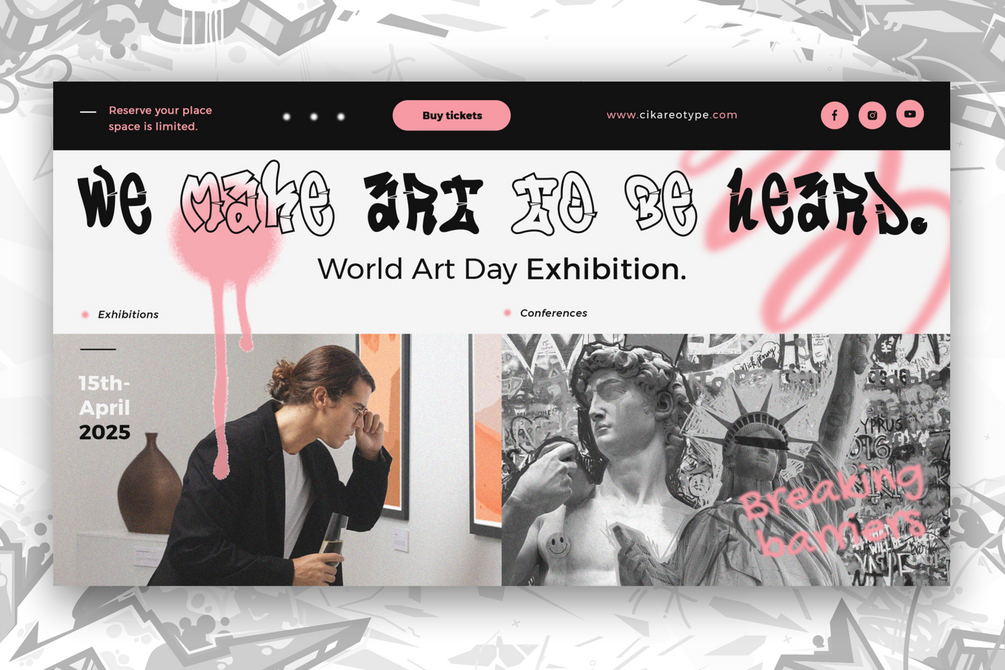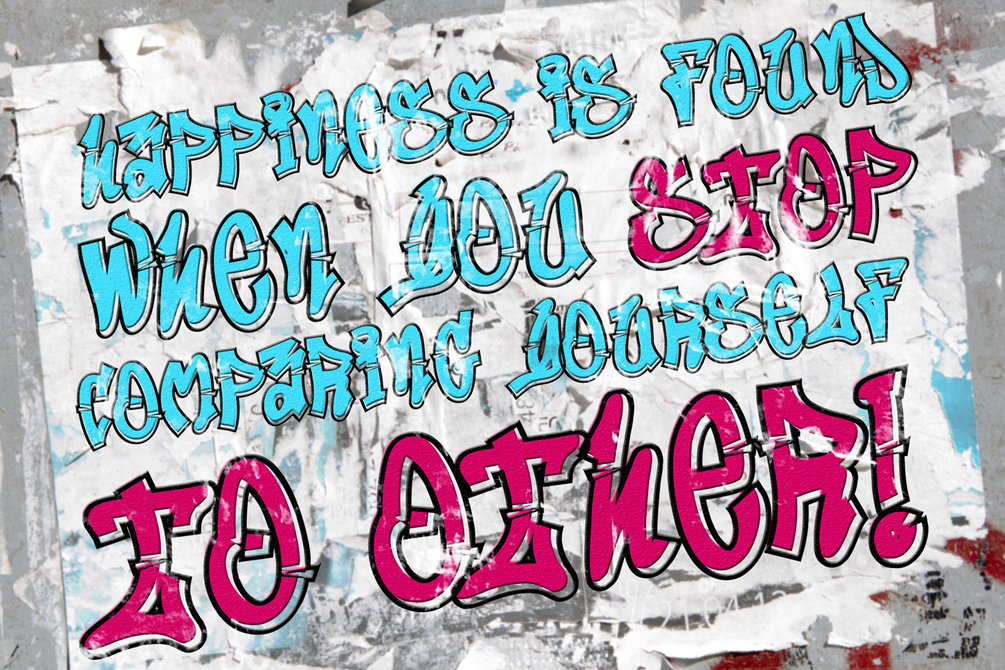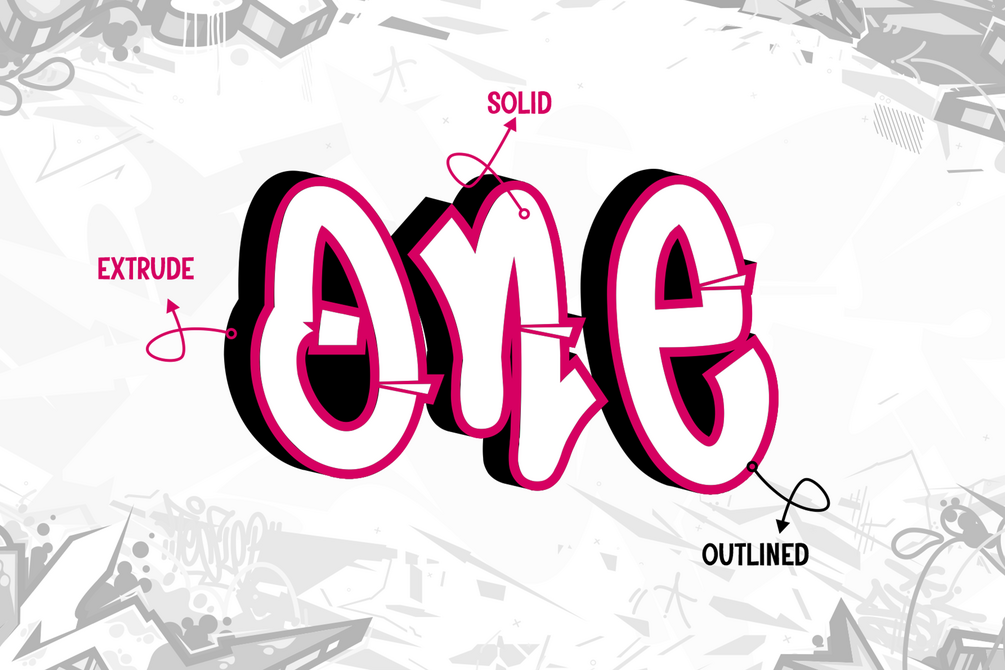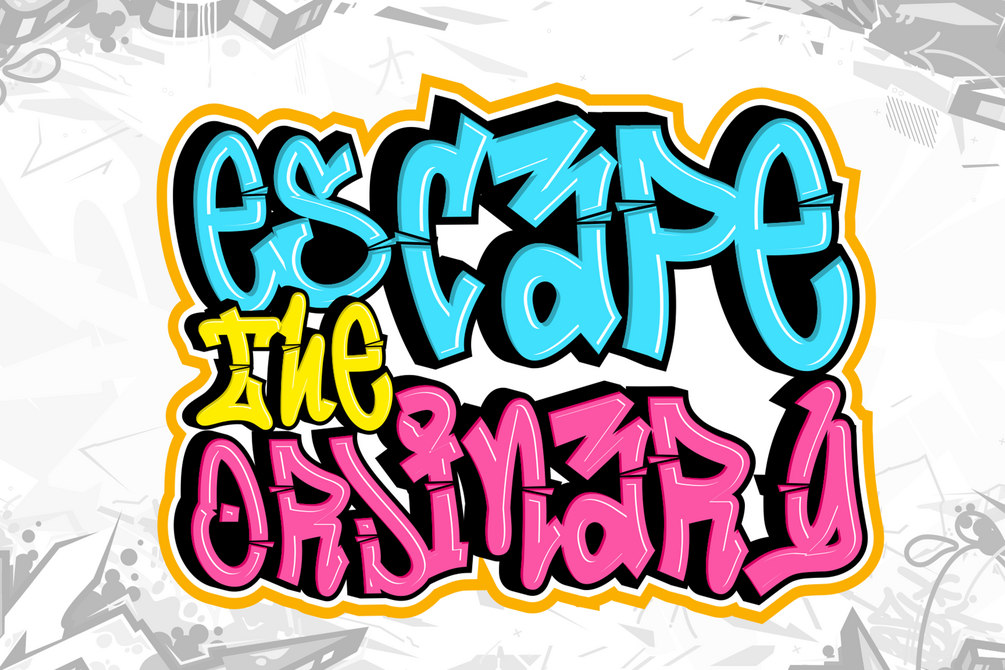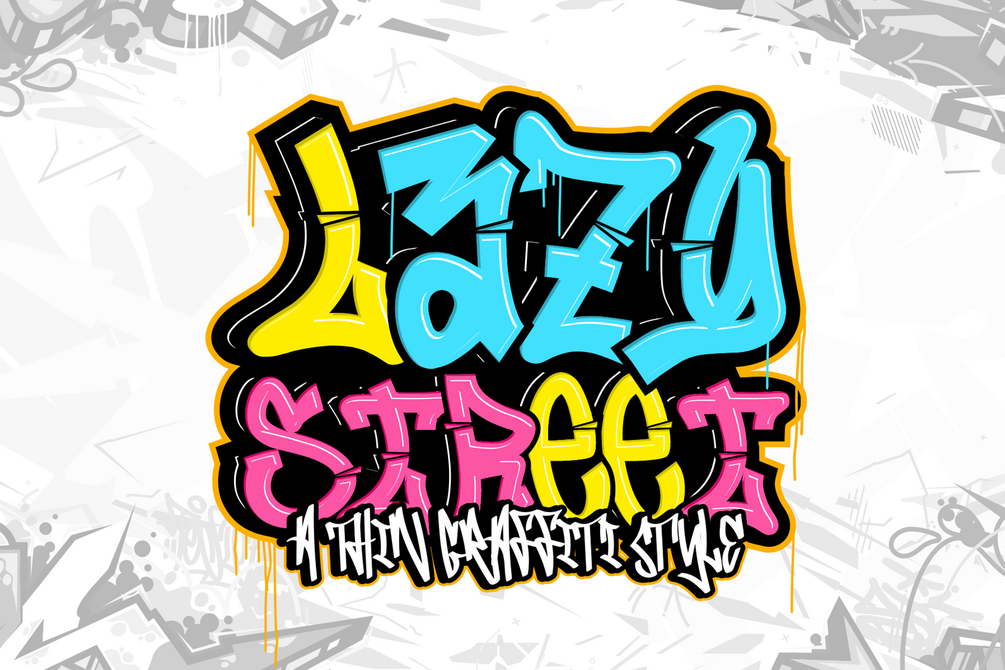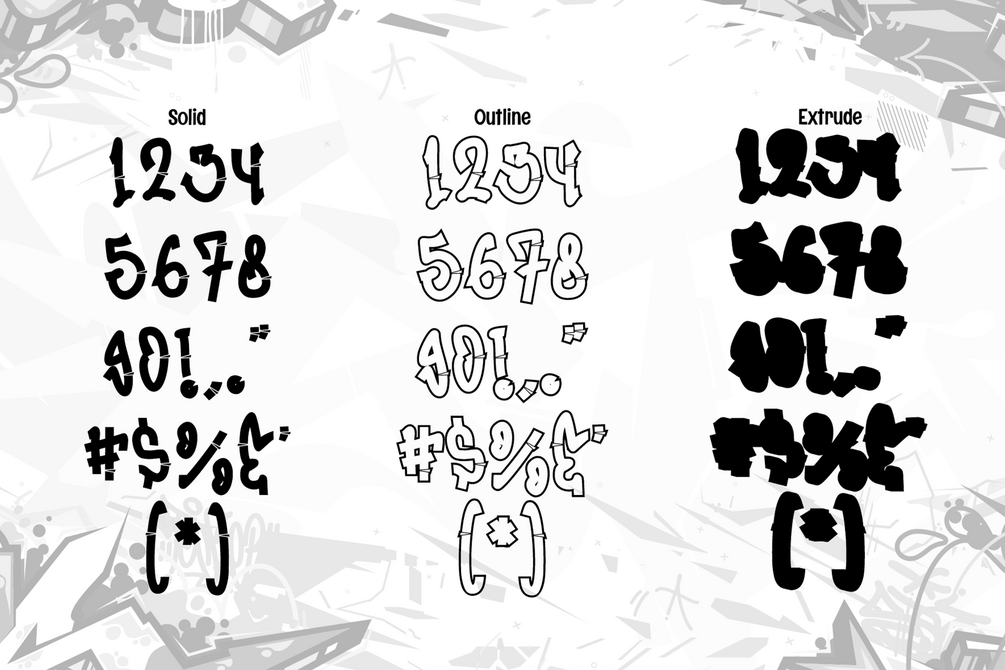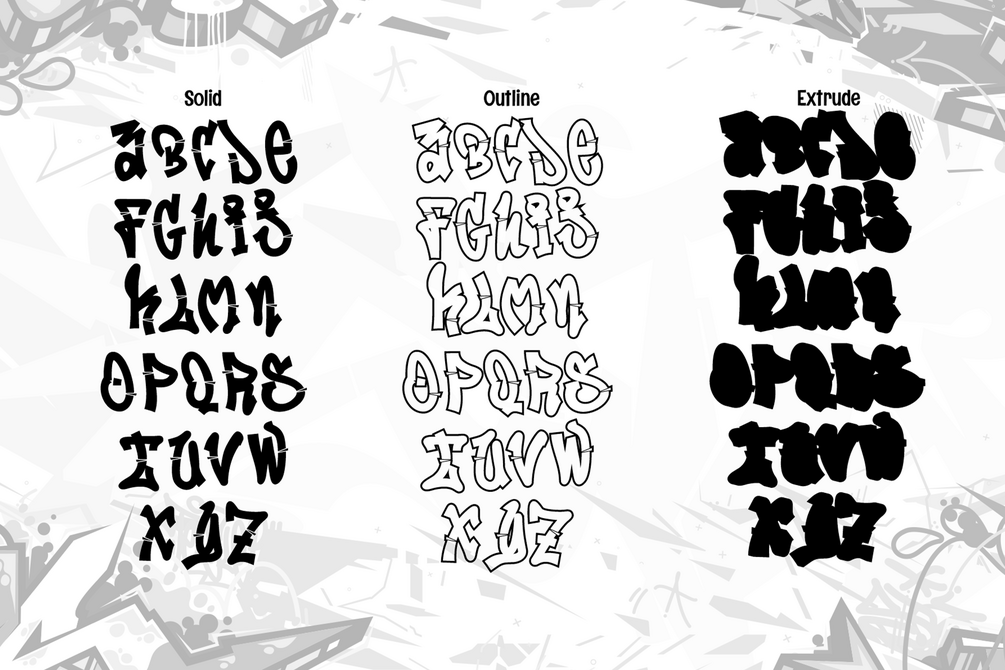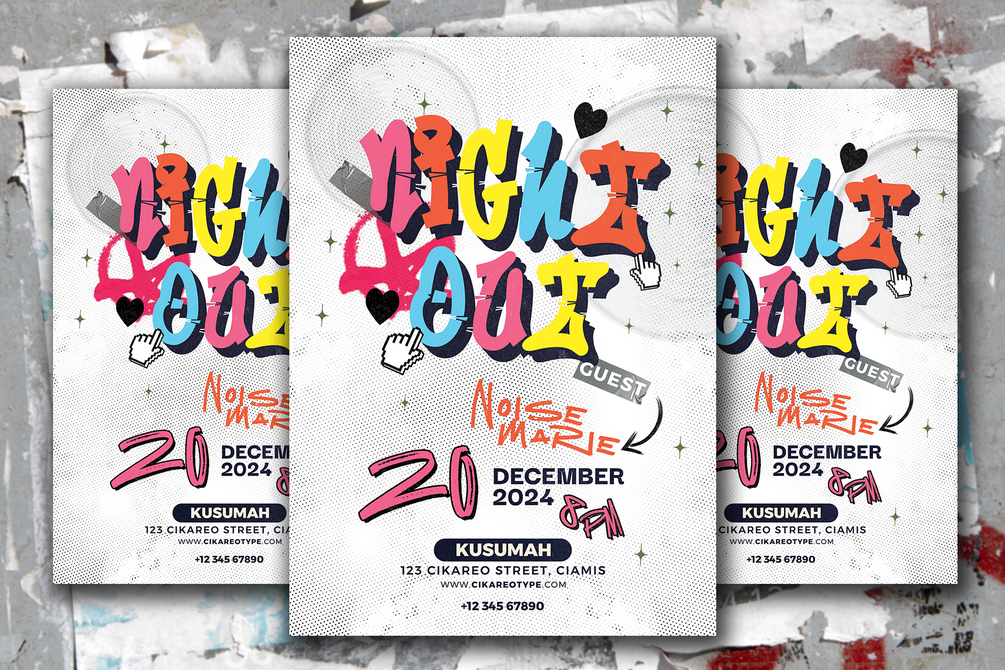
Lazy Street is a thin, layered graffiti font that blends sleek modernity with the authentic energy of urban street art. Featuring three unique styles—solid, outline, and extrude—this font allows you to mix and match layers to create bold, dimensional designs with a refined edge. Its thin strokes provide a contemporary twist to the graffiti aesthetic, making it ideal for projects that need a balance of subtlety and attitude. Whether you're designing posters, streetwear, album covers, urban branding, or creative layouts, Lazy Street adds a stylish and effortlessly cool vibe to your work. Perfect for capturing the raw essence of graffiti culture while maintaining a lightweight, polished appearance, this font is a must-have for those looking to make a striking yet sophisticated statement.
• Versatile for branding, headline, or printing product